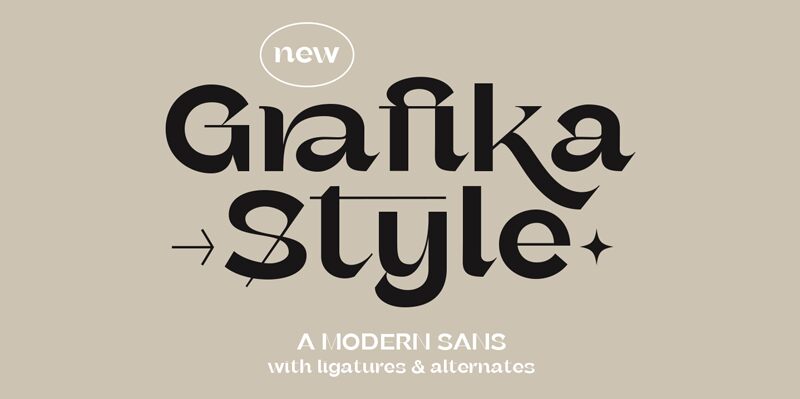
Grafika, a modern serif font designed by Saridezra, combines elegance with a touch of contemporary flair. With its semi-bold weight and semi-expanded width, Grafika is perfect for projects that require a balance between sophistication and readability.
Whether it's designing sleek and professional logos for tech startups or creating visually stunning brochures for high-end fashion brands, this versatile font is sure to make a lasting impression. Its clean lines and subtle curves lend themselves well to editorial layouts, branding materials, and website headers.
Embrace the modernity of Grafika and elevate your designs to new heights.